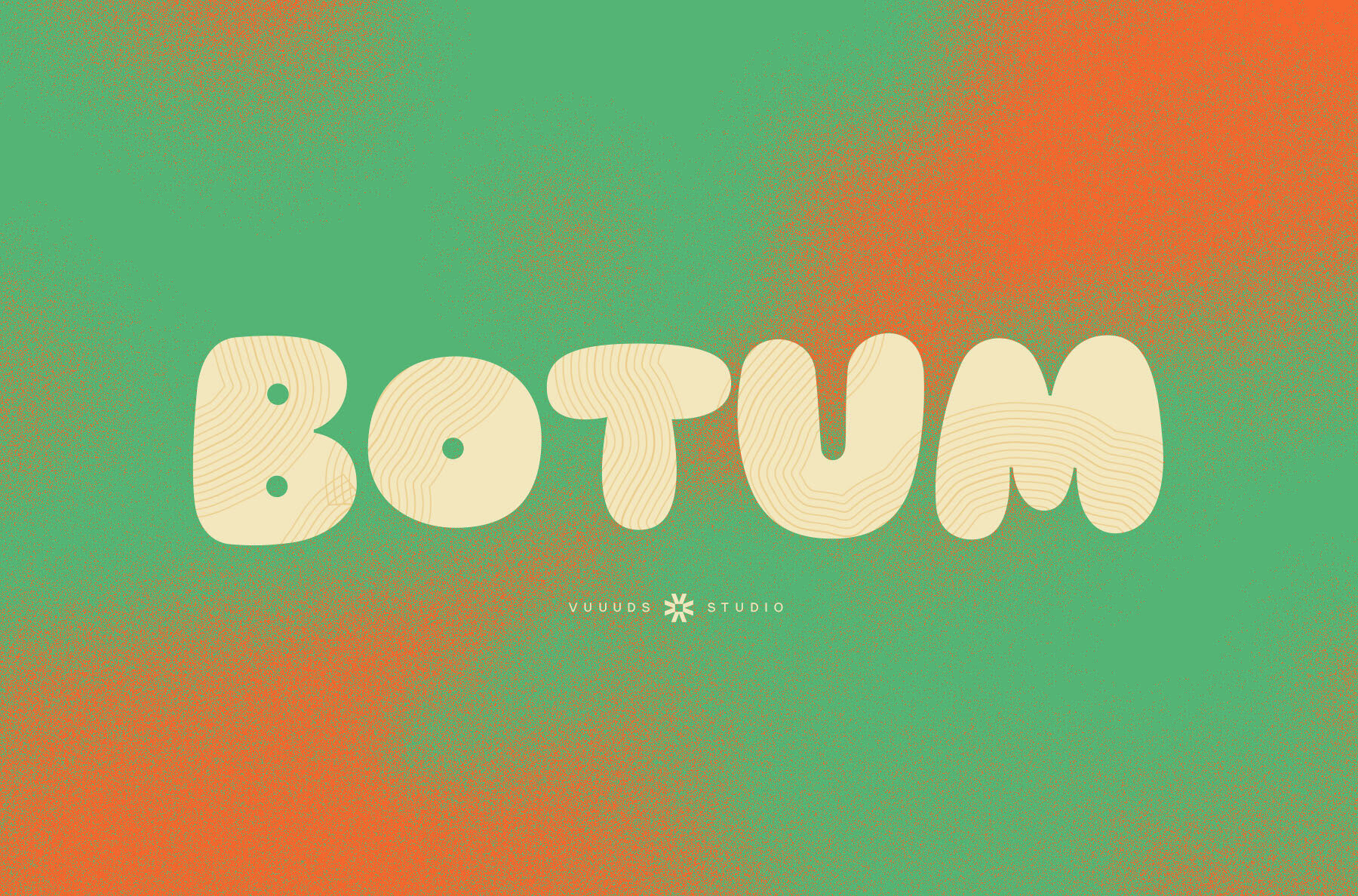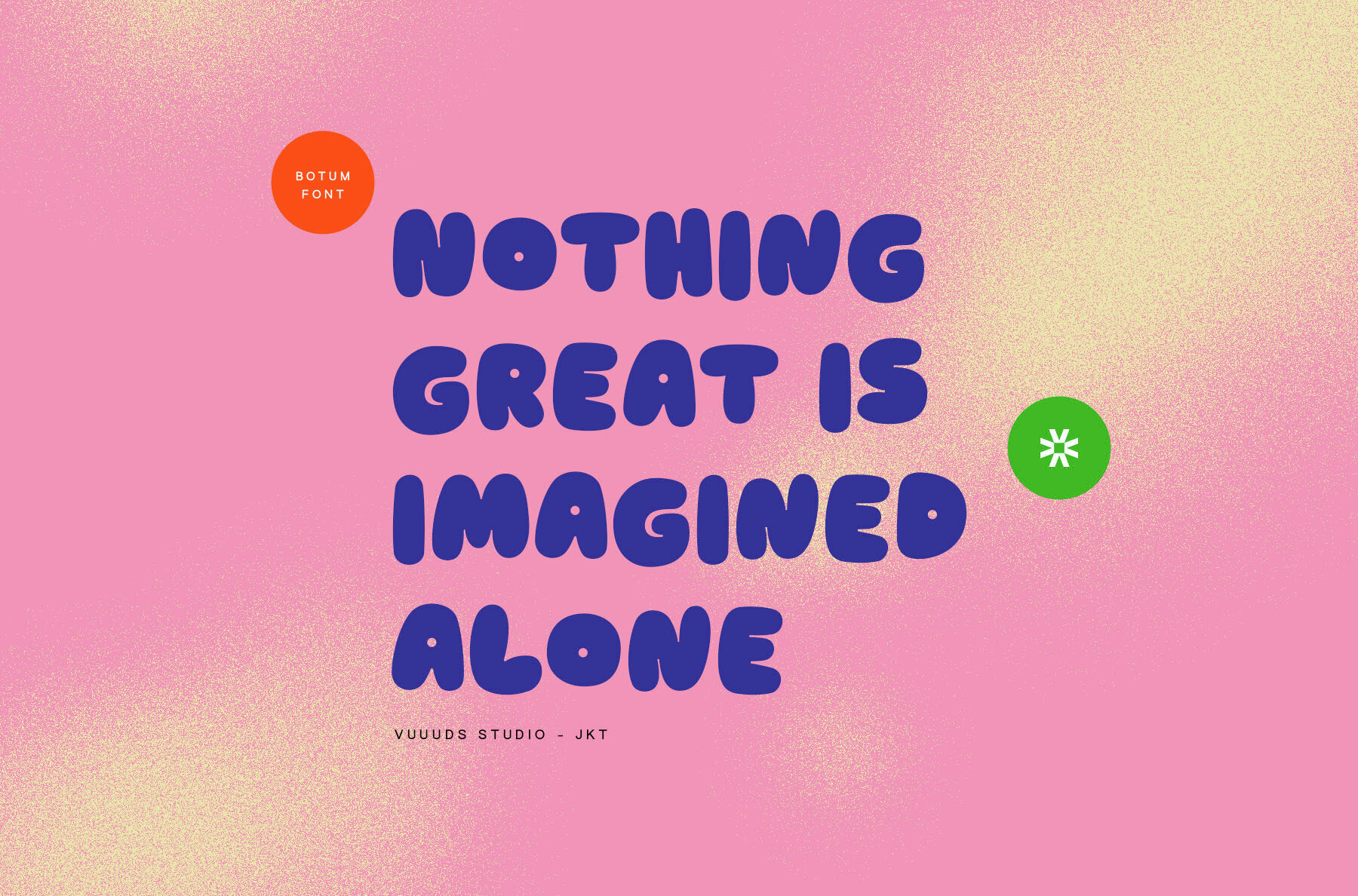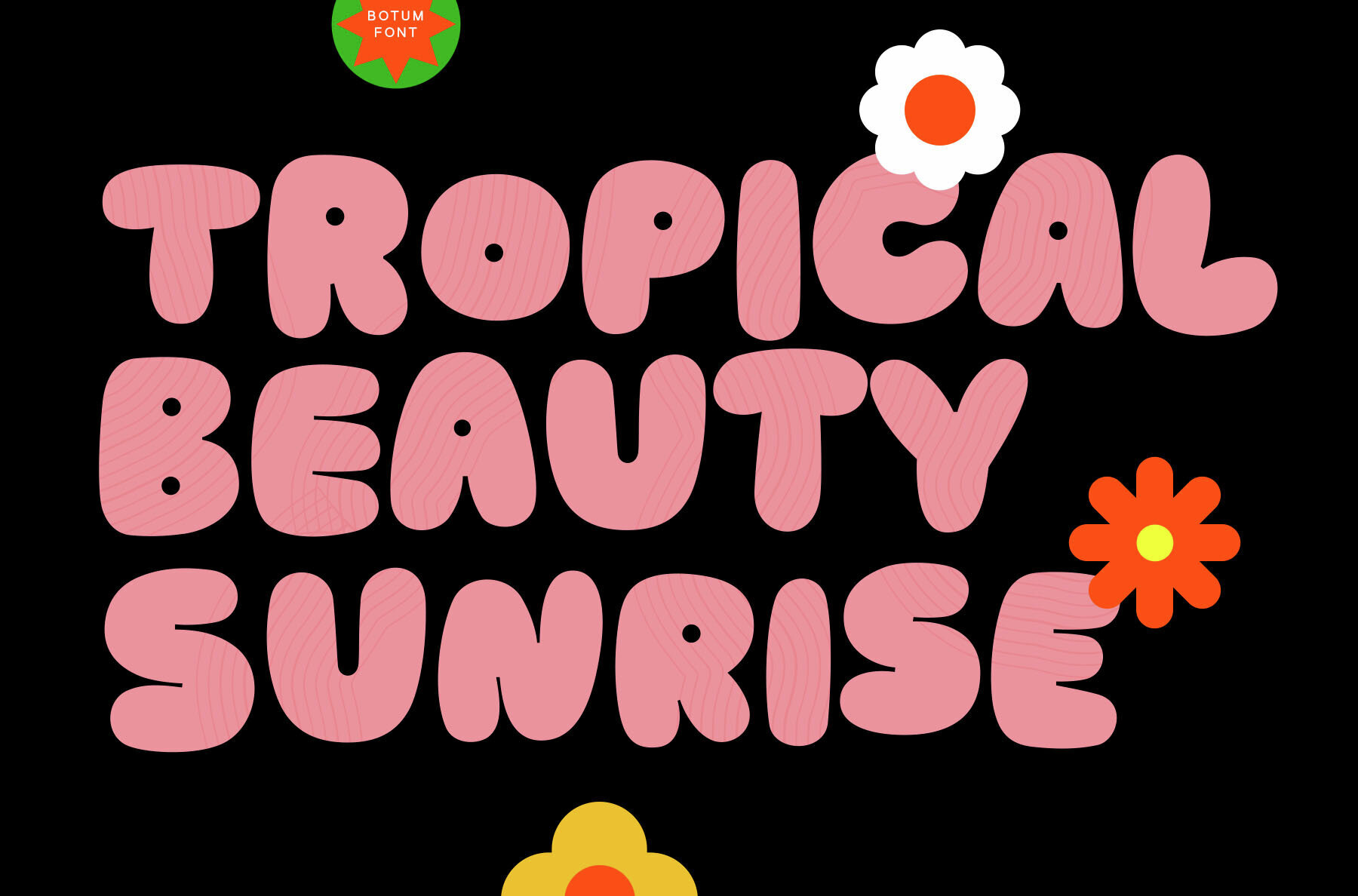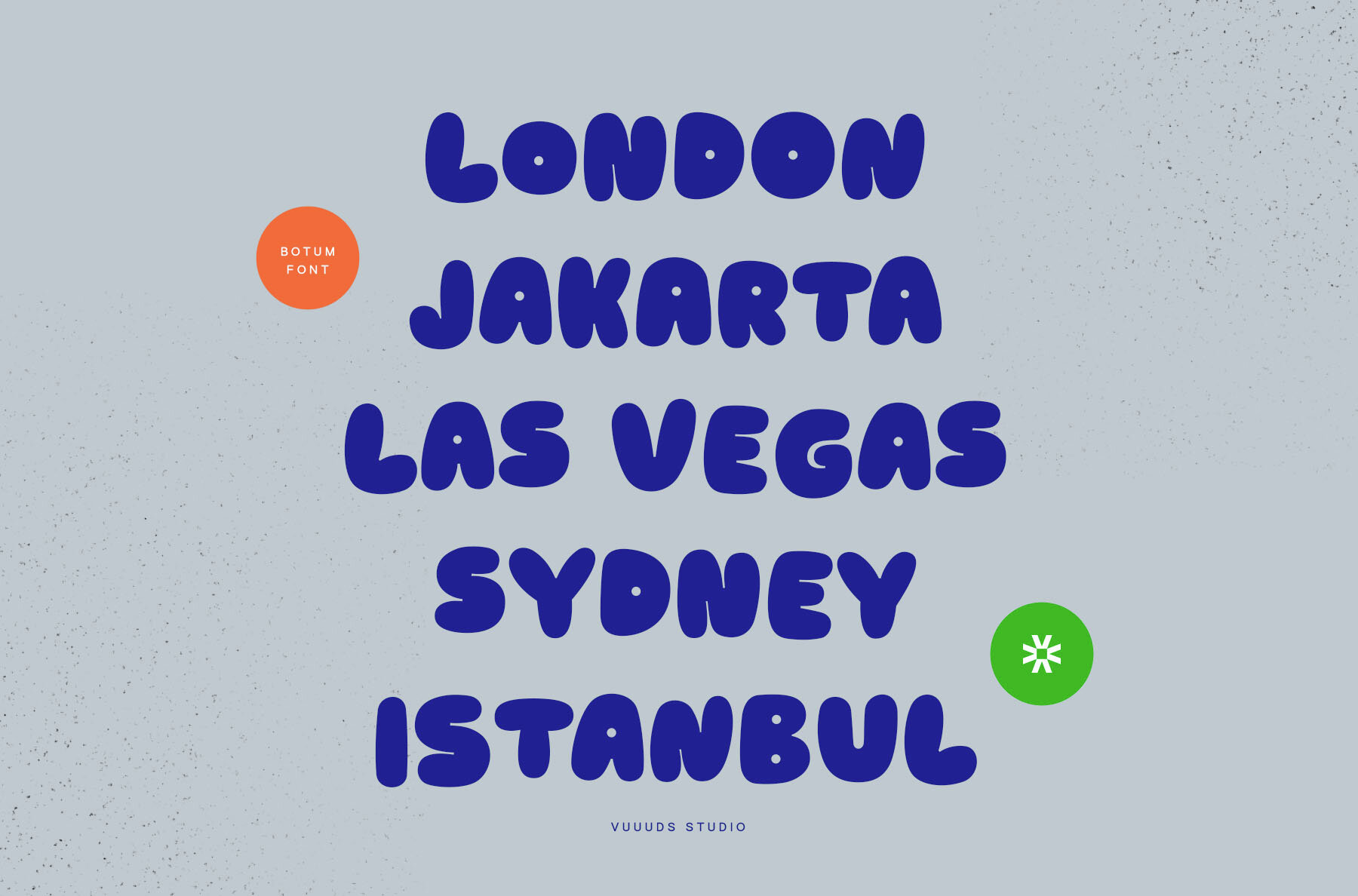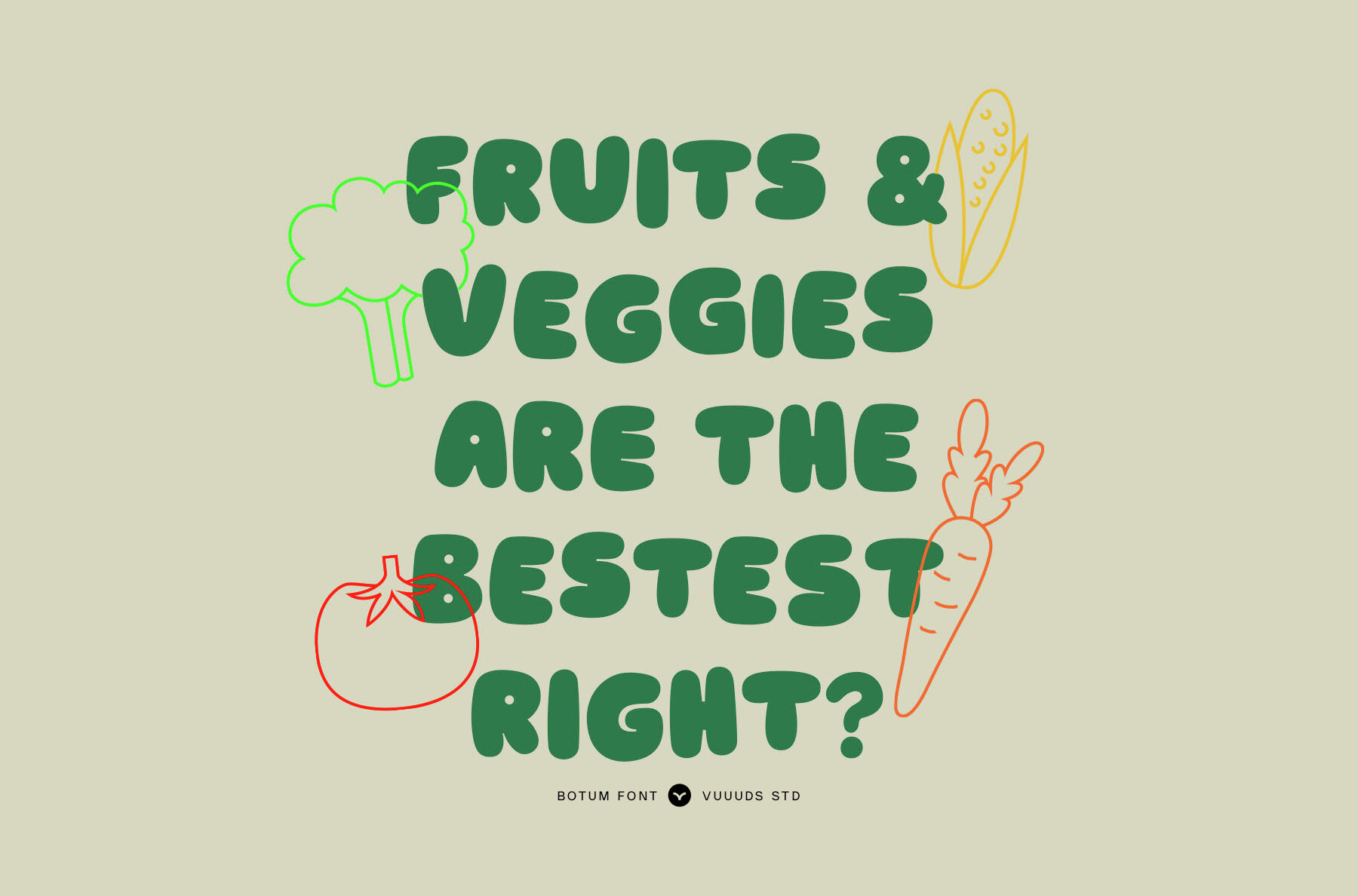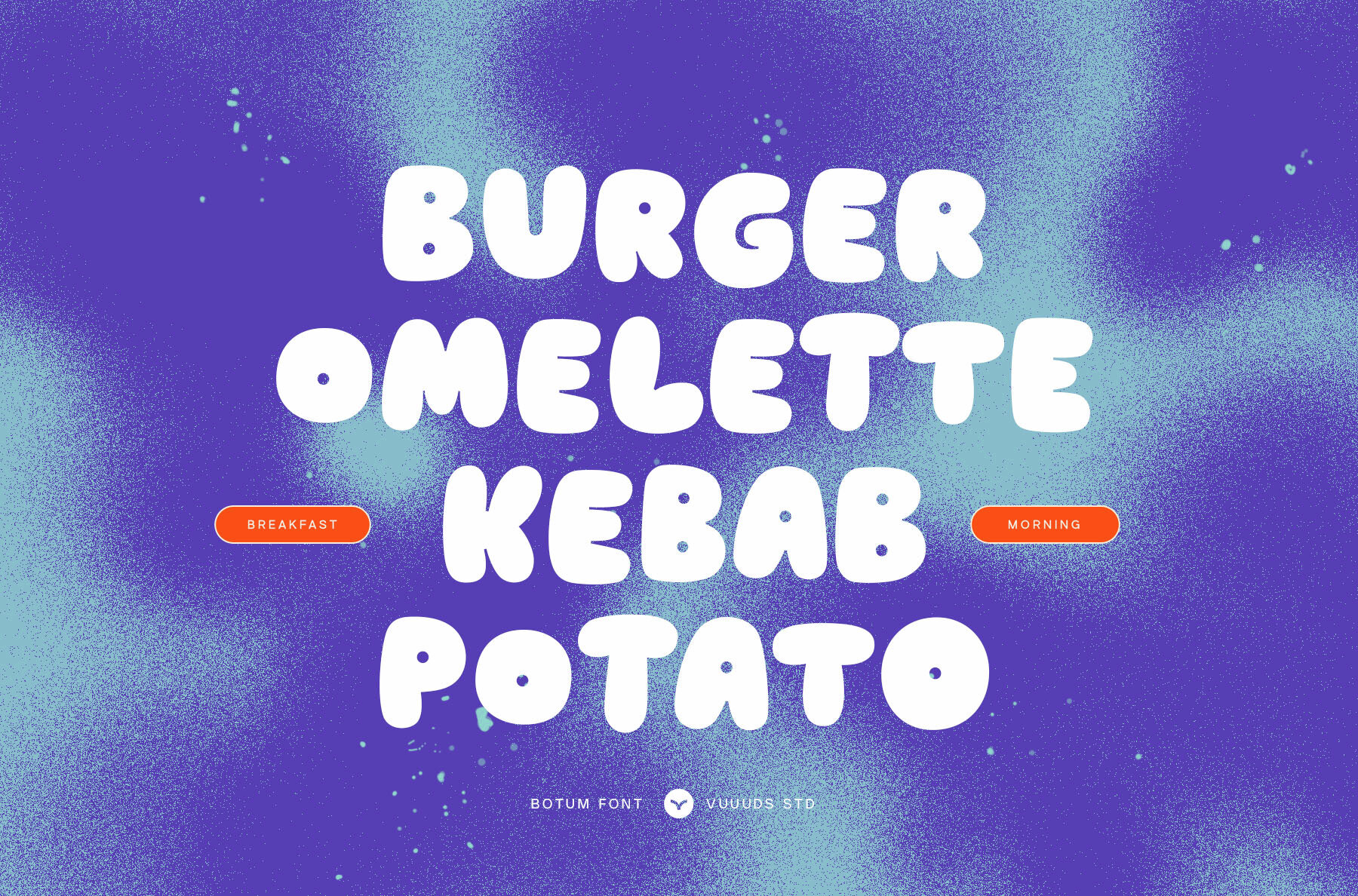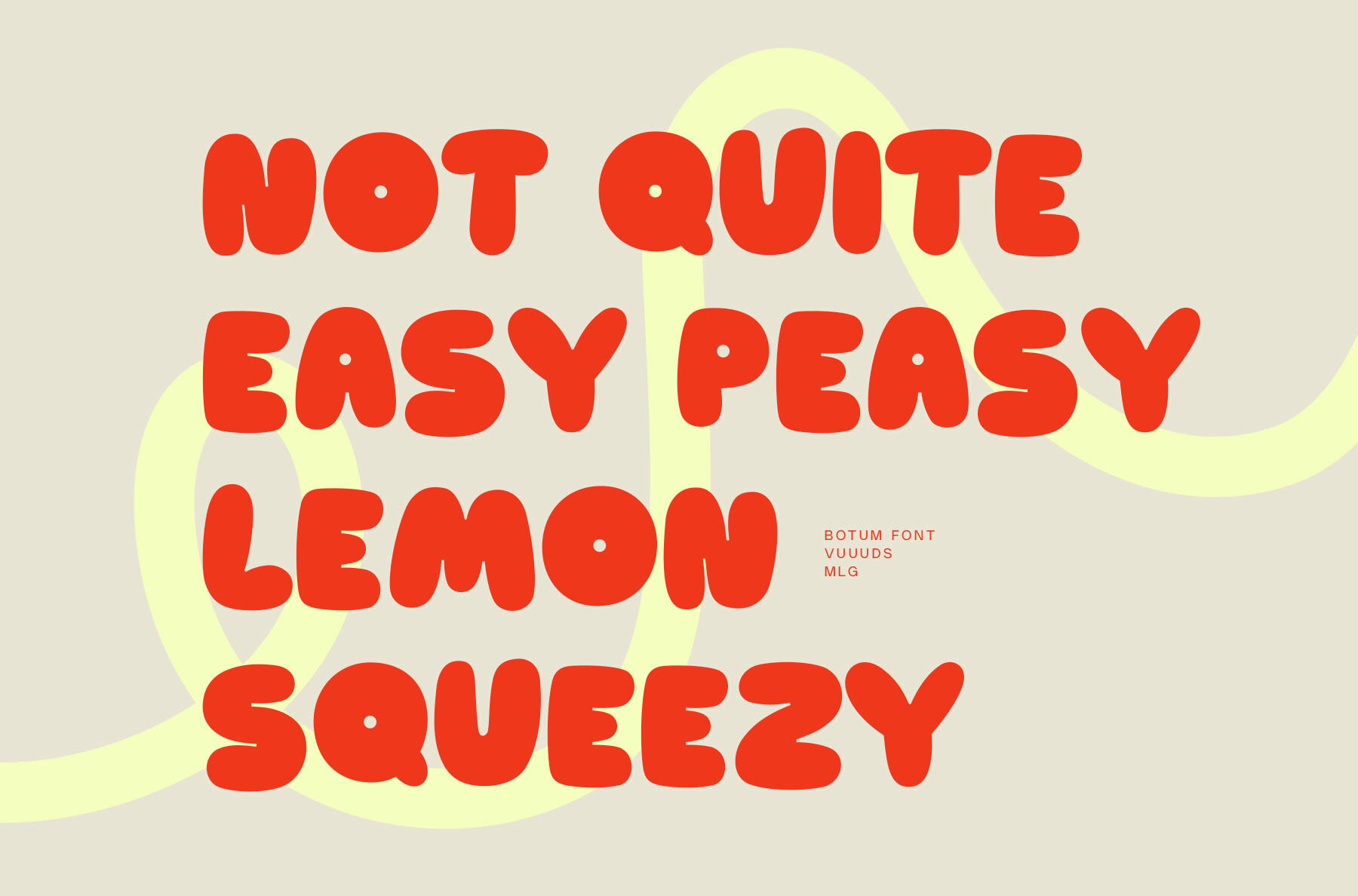
Botum Font
Botum
Botum is an experimental rounded extra bold font, with each letter being uniquely crafted. This font includes beautiful alternate glyphs, accessible via Font Book for Mac users or Windows Character Map for Windows users.Botum Font: Unique Rounded Extra Bold Design